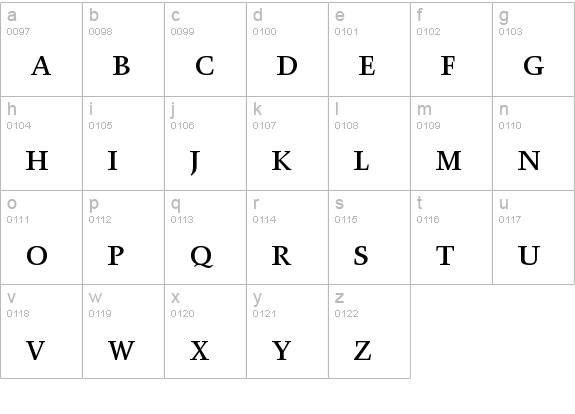
Gilgamesh SmallCaps Font Details
Gilgamesh SmallCaps is a sophisticated and elegant font that exudes a sense of classic beauty and timeless grace. With its delicate lines and exquisite detailing, this font is perfect for adding a touch of refinement to any design project. The SmallCaps variation adds a unique flair, making it stand out from other fonts. What sets Gilgamesh SmallCaps apart is not only its stunning aesthetics but also its versatility. Whether used for headings, titles, or body text, this font brings a touch of sophistication to any project. Its clean and crisp appearance ensures readability while still maintaining a sense of style and elegance. The best part? Gilgamesh SmallCaps is available for free download at FontsMarket.com. This means you can elevate your designs without breaking the bank, making it a perfect choice for designers on a budget. Don't miss out on the opportunity to enhance your projects with the beauty and sophistication of Gilgamesh SmallCaps font - download it today and experience the magic for yourself.